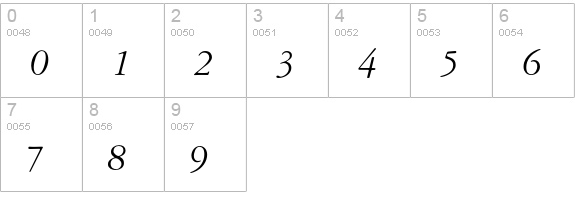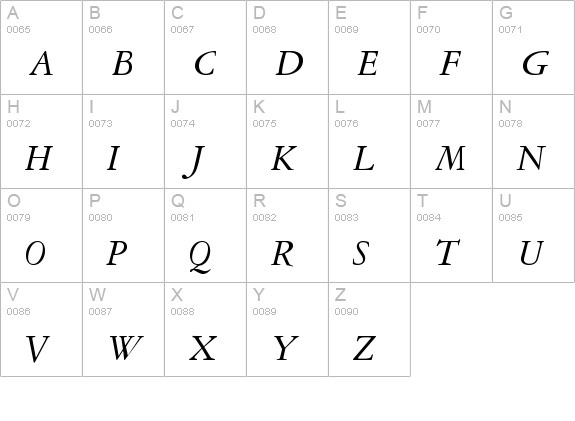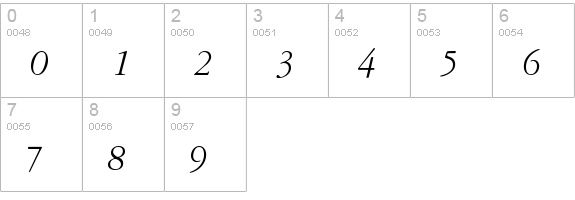
Garamond Three Italic Font Details
Garamond Three Italic is a distinctive, italic variant in the Garamond typeface family \xE2\x80\x94 well suited to design and typography projects.
Garamond Three Italic font exudes elegance and sophistication with its graceful curves and timeless appeal. This italic variant of the classic Garamond typeface adds a touch of flair and style to any design project. The slanted letterforms create a sense of movement and dynamism, making text appear more engaging and expressive. What sets Garamond Three Italic apart is its versatility – suitable for both formal and informal applications, this font is perfect for adding a touch of sophistication to invitations, advertisements, posters, and more. Its delicate serifs and flowing lines make it a popular choice for projects where a touch of classic charm is needed. The best part? Garamond Three Italic is available for free download at FontsMarket.com. Whether you're a seasoned designer looking to add a new font to your collection or a novice seeking the perfect typeface for your next project, Garamond Three Italic is a must-have addition to your design toolkit. Download it today and elevate your designs with this timeless and elegant font.